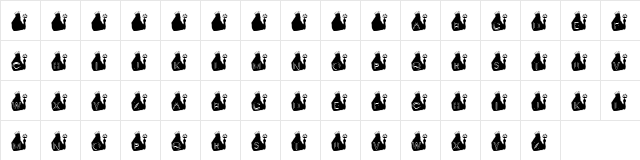
KR Triton Regular Font Preview
KR Triton Regular
Design Context for KR Triton Typeface
KR Triton is a composed and adaptable typeface that performs quietly and consistently across a wide range of design contexts.